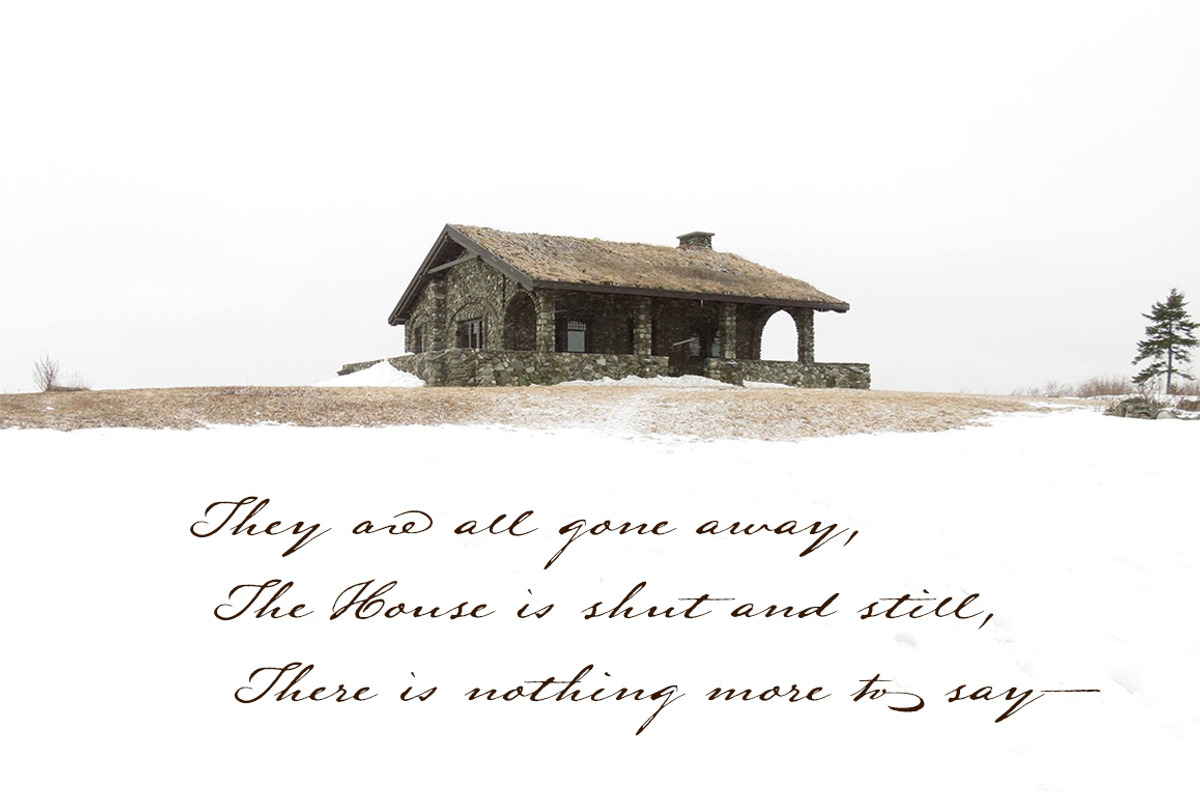
Lamar Pen, a vintage cursive font
Lamar Pen, a vintage cursive font by Three Islands Press is a font selected for branding, posters, packaging, typography.
- Lamar Pen comes with many discretionary ligatures, contextual alternates, both lining and old-style figures, an inkblot or two, and complete
Lamar Pen, a vintage cursive font by Three Islands Press fits naturally into Branding, posters, packaging, typography.